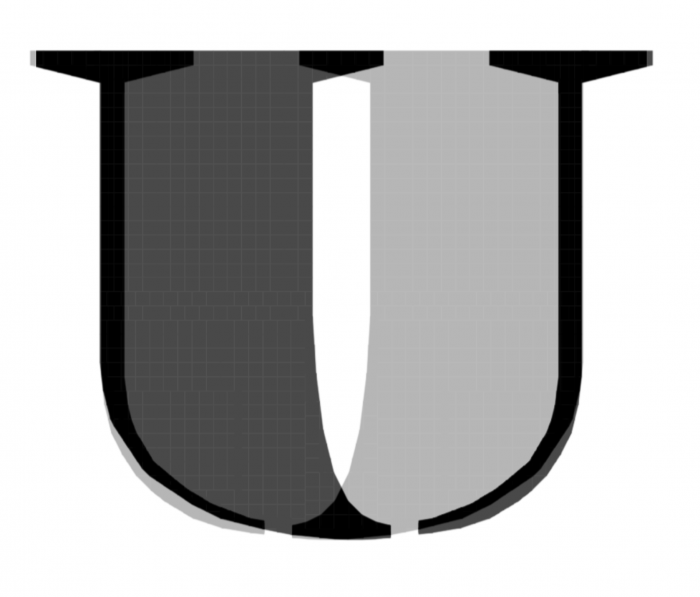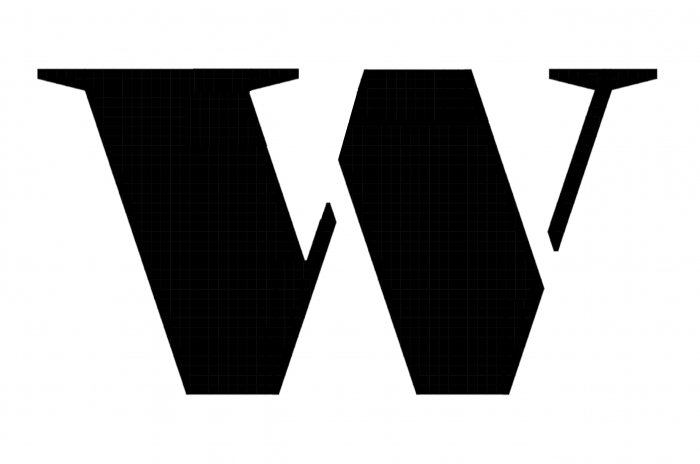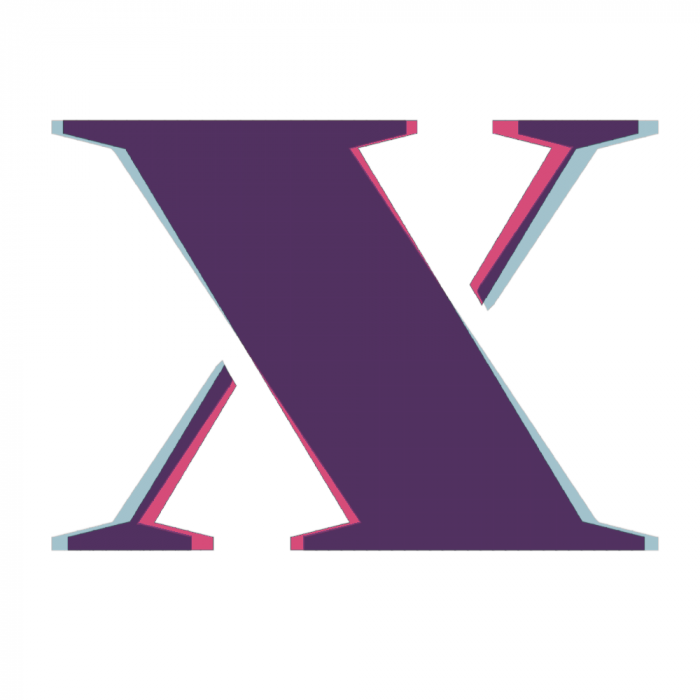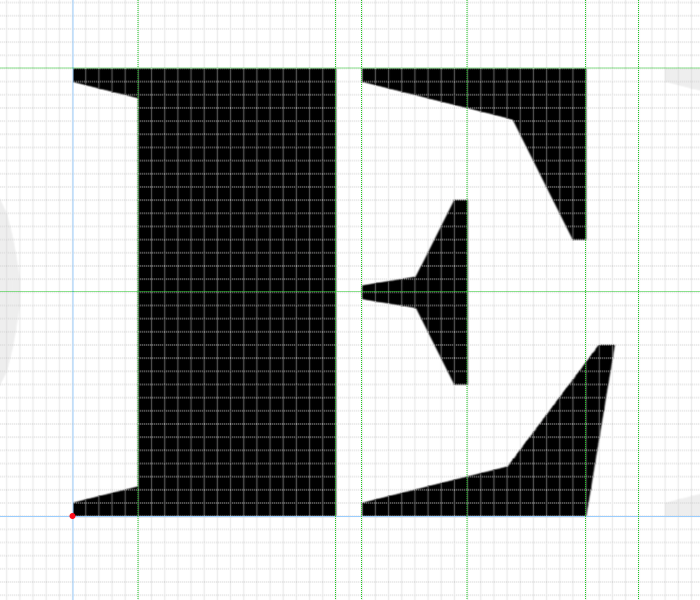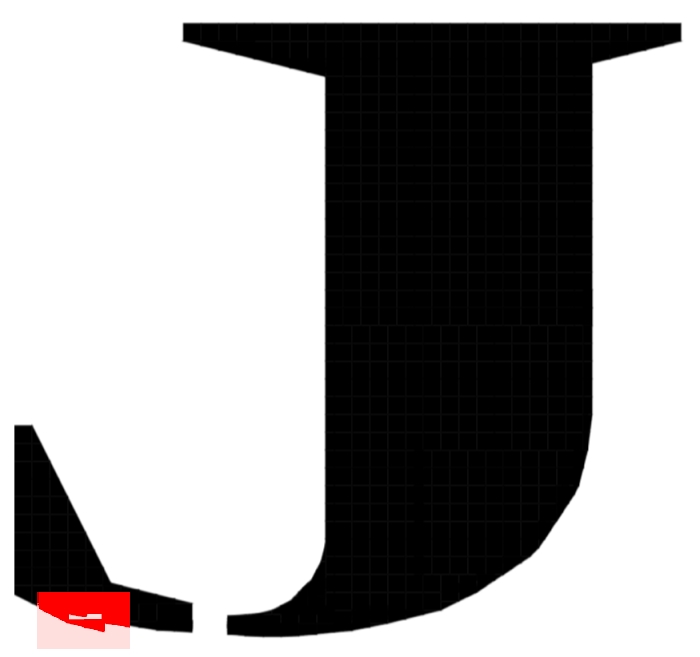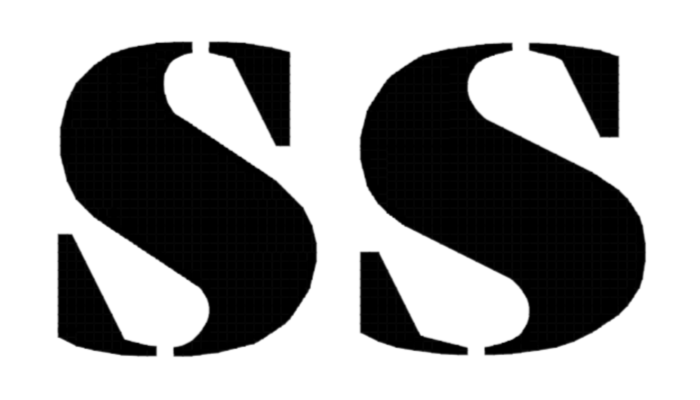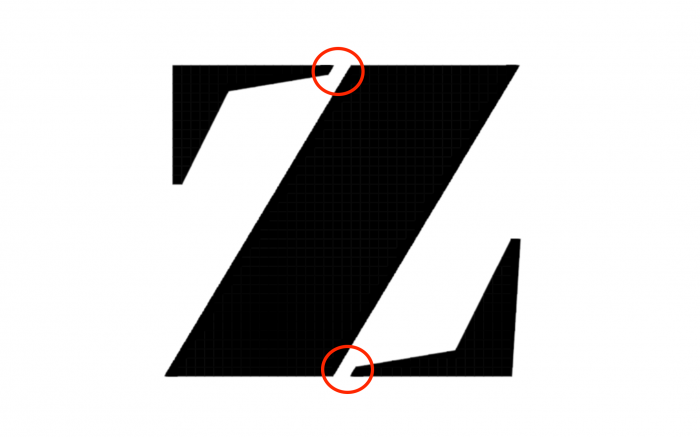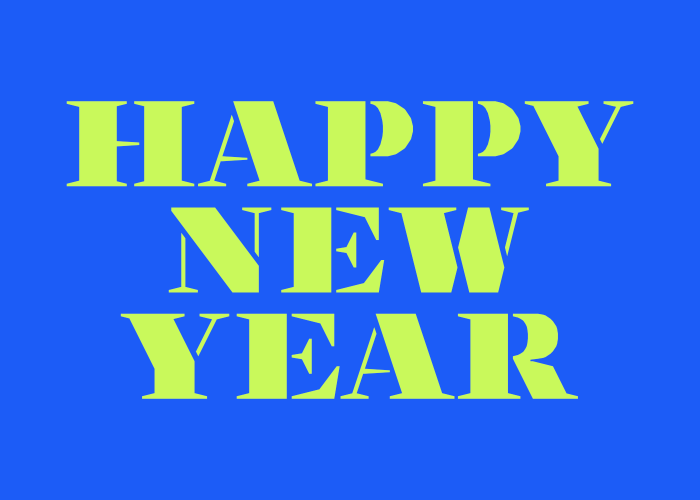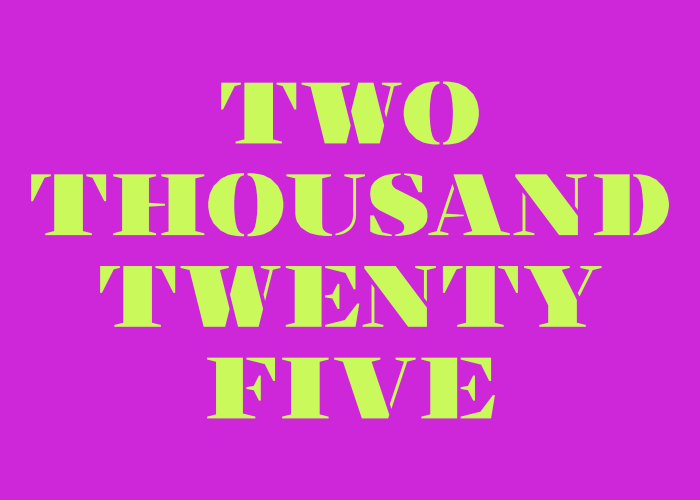
• Fonticello: a hybrid Italian word from Monticello and Fonticelle. (The Italian  pronunciation of "cello" sounds like chello in English; child, chimp, cappuccino.)
Elegant stencil serif. Capitals only. It is still a work in progress. This is my finest brickwork so far. I can't believe it took nearly two weeks to complete the 26 letters of the alphabet.
When set at pixel levels, there are some grey areas that appear on some letters, but the font looks pretty nice none the less.
A work-in-progress, but still clearly a well-designed-work nonetheless~
Its very pretty 10/10. I like the thining bridges in A and H. Nice detail. Cant wait to see the digits. I was curious how would a symetrical more M-related N look like, but cant say I liked it more. Maybe it would look too "ordinary" that way (cant find better word).
Charming bold stencil, Maestro! Waiting for the glyphs promised. By the way, the U seems slightly unbalanced to me, IMHO, is that intentional?
@Bryndan W. Meyerholt (BWM): It's a known artifact of the pixel preview. The nudged bricks appear to be grey. Also, the composite bricks are rendered incorrectly, resulting in jagged edges.
@Peter (Petruuccio): Your version of the N looks all right, minus the bottom-right serif. It may work well in a narrow version. The diagonal is too steep, resulting in a smaller letter width. The capital N is a tricky beast; one has to consider several interconnected parameters.
@elmoyenique: You are right about the U. Normally, it is symmetrical. I spent two days building this letter alone. I even made a mirror image comparison, just like yours. I went through several versions, and the current one is still not good enough. A symmetric version would be too wide. However, an asymmetric design is acceptable for the U (see the stencil font below). I have to refine the inner contour on the left side.
This font follows the traditional design elements of Poster Bodoni and Stencil Bold. I spent a lot of time examining my letters (enlarged in preview mode), considering their proportions and how they fit together. I'm still unhappy with the J, Q, S, U, and W.
"an asymmetric design is acceptable for the U (see the stencil font below). I have to refine the inner contour on the left side." I think the inner left radius of U was simply starting attached too high and now it is much better (maybe even too low for change). Check the J, seems some bricks need nudge up.
@Peter (Petruuccio): Thank you for your comment. I corrected the U. It's not perfect, but serviceable. I'm working on the J. It shares the same curve with the U on the thick side. On the thin part, the situation is delicate. There are nudged bricks and composites all over. I couldn't fix it in one go. I'm taking a break, and tomorrow, I will start with a fresh perspective.
@elmoyenique: Thank you for the nice W. It's not bad, but it's still too wide. Prompted by your version, I built a new one similar to the W in the Stencil Bold sample. It is almost right.
I've made the X slightly narrower. The old version is light blue, and the new one is magenta.
Letter E in Fontstruct, apparently. Simple, straightforward design with whole bricks. No filters, no nudging.
meticulous!!
You did the same glyph simplification for rounded letters, i.e., whole units?
What an excellent chunky stencil with tapered serifs!